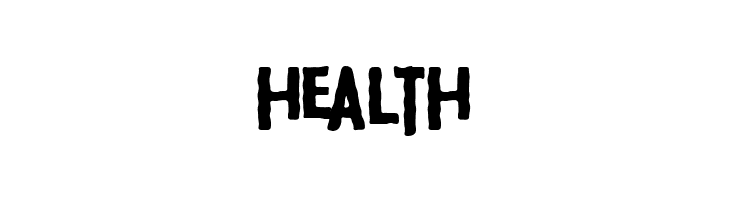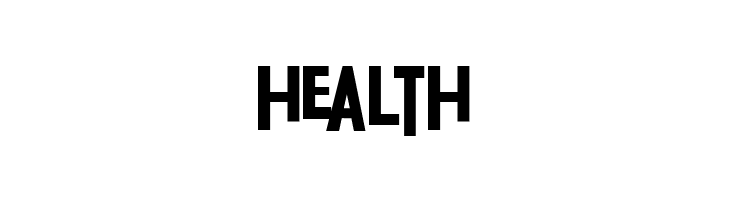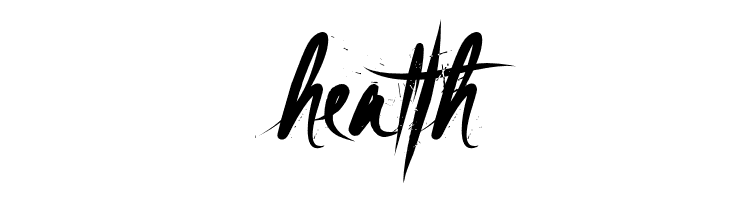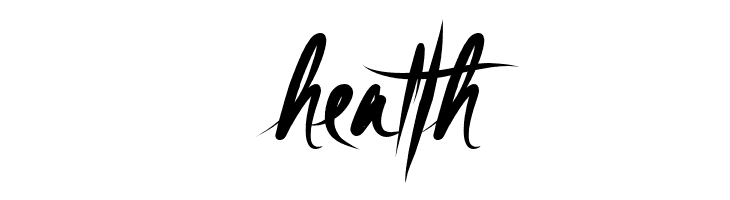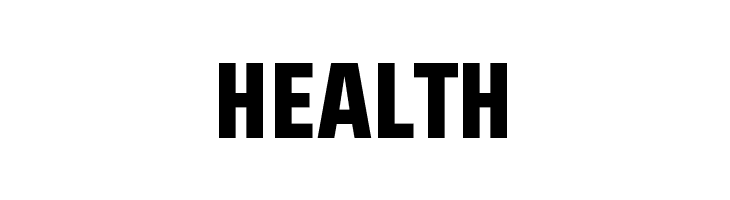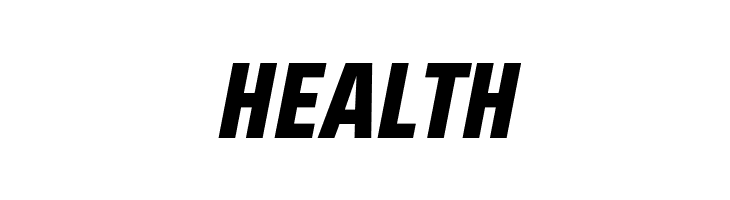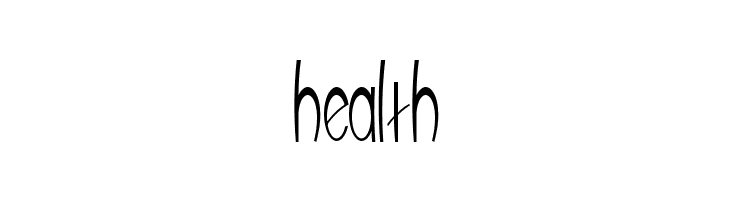
A dynamic and expressive script font with elegant, sweeping curves.
A textured, expressive font with dynamic brush strokes and splatter effects.
A bold, playful font with a modern and quirky style.
A bold, hand-drawn font with an organic, playful style.
A bold, impactful typeface with strong geometric shapes and high contrast.
A bold, geometric font with a modern and impactful style.
A bold, italicized font with a dynamic and impactful style.
A bold, italic font with a modern and dynamic style.
A playful, elongated font with a whimsical and modern style.